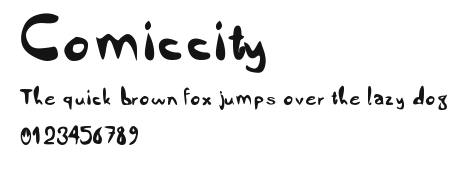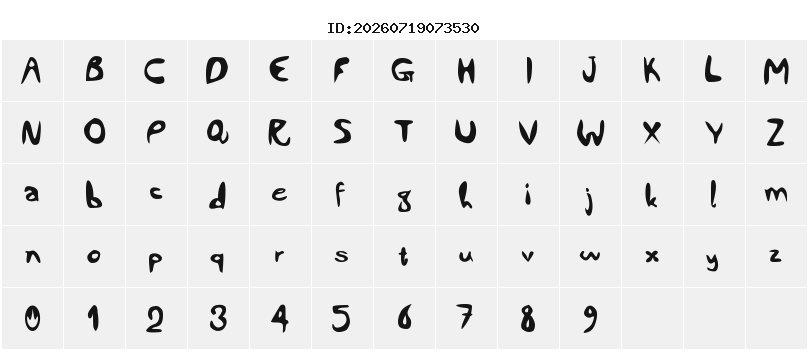
• Font Name: Comiccity
• Full Font Name: Comiccity
• Designer: Lazaros16
• Description: This unique font has as characteristical attribute the low-detailed curves.Unpractical but funny!